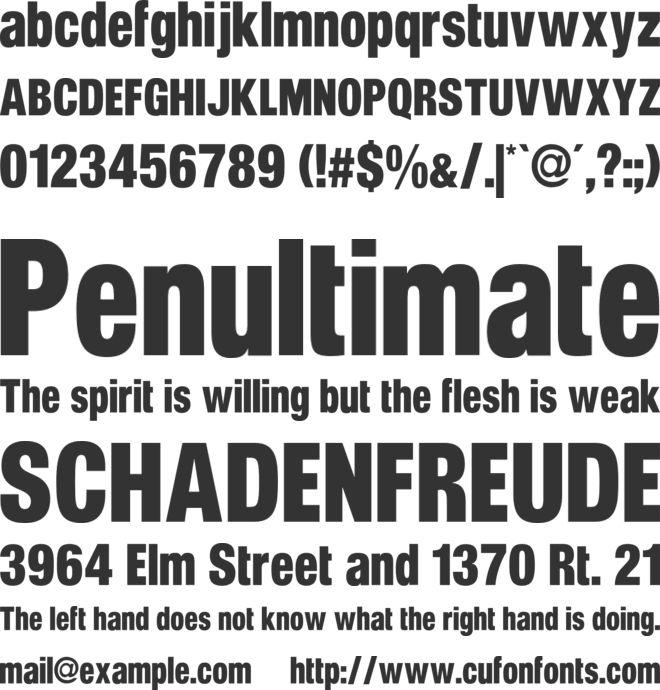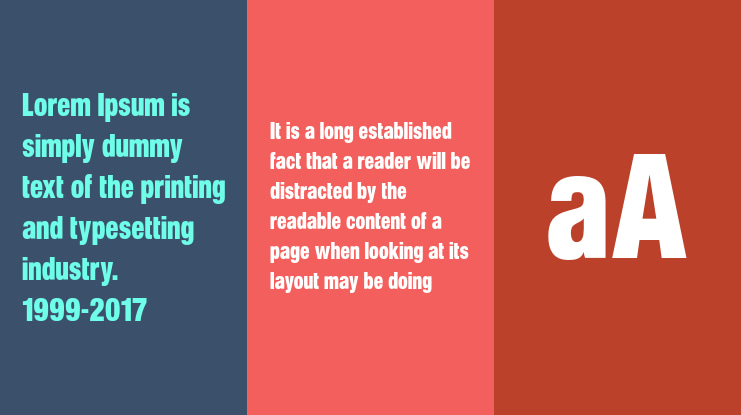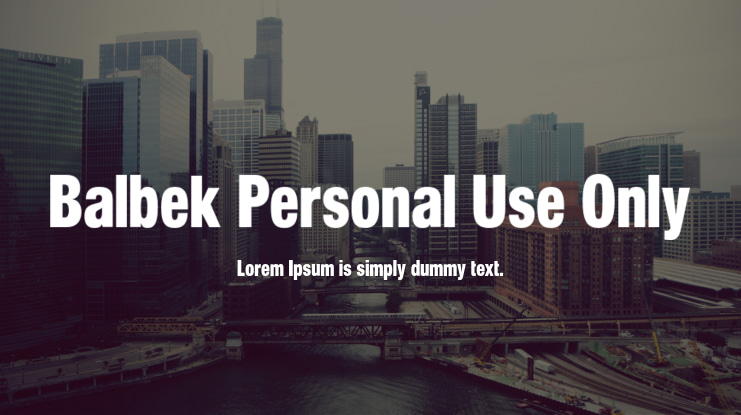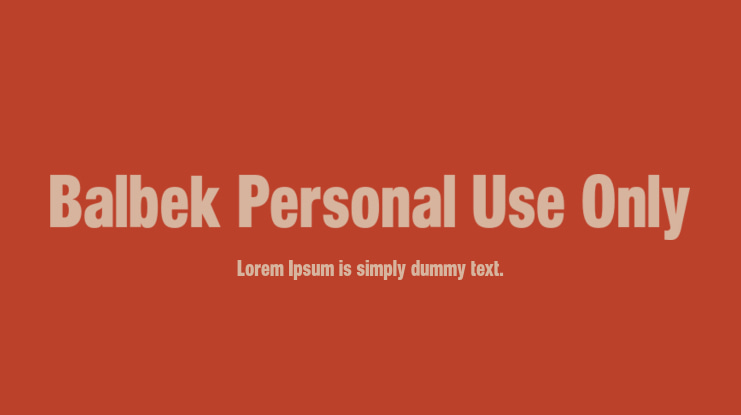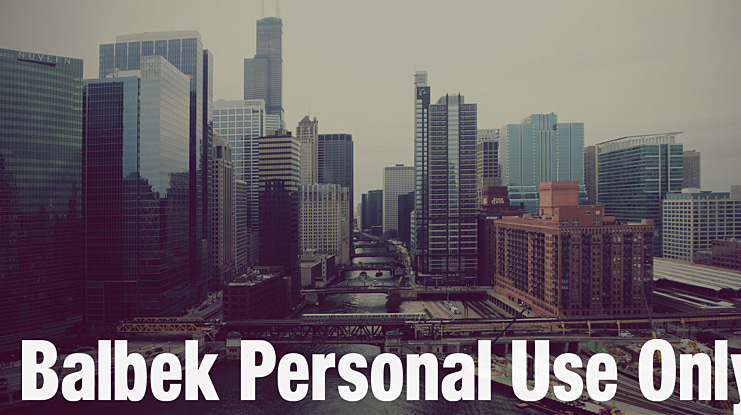
Balbek Personal Use Only Font
Balbek font
Introducing Balbek A modern condensed sans serif ligature typeface.
Designed by graphic designer Martin Katibi. The balbek font is an eye catching heavy and condensed sans serif type face. The inspiration for this font were other condensed sans serif such as Gabo Drive and Impact.
The Balbek font is great for use on headlines, advertisements, product packaging, newspapers and posters. Balbek fully supports multilingual characters, it also come with a full set of alternative uppercase letters, ligature and small cap. All these features will make your next project standout.
The font comes in eight styles, which are Regular, Cut, Outline and Soft. Each of these font styles comes with an oblique version.